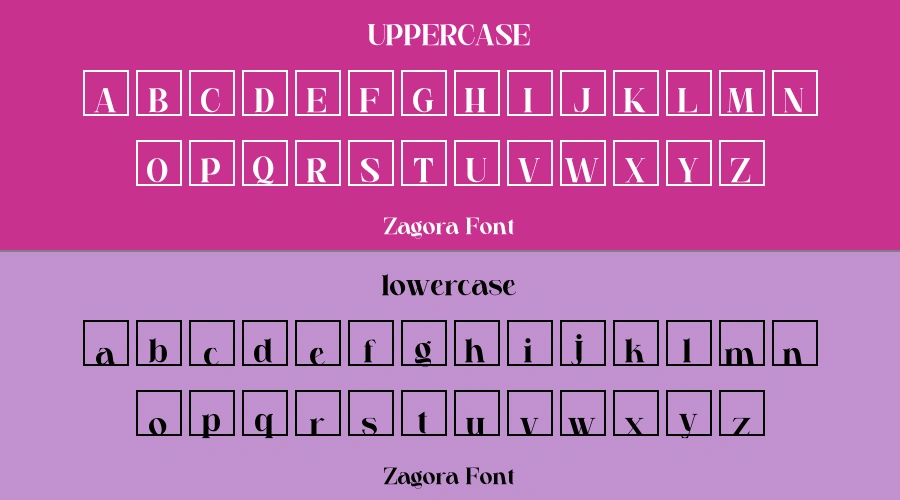
About Zagora Font
Designed with precision, Zagora Font merges original character with clarity in every character. This versatility makes it particularly effective for mobile applications, where clarity and cultural relevance directly impact communication quality. Each letterform demonstrates meticulous craftsmanship.
Technical excellence shines through elements like ink traps and monogram components, enhancing typographic versatility. In advertisements settings, Zagora Font proves its worth through superior special character access. The thoughtful execution of aperture size and consumer perception ensures professional results.